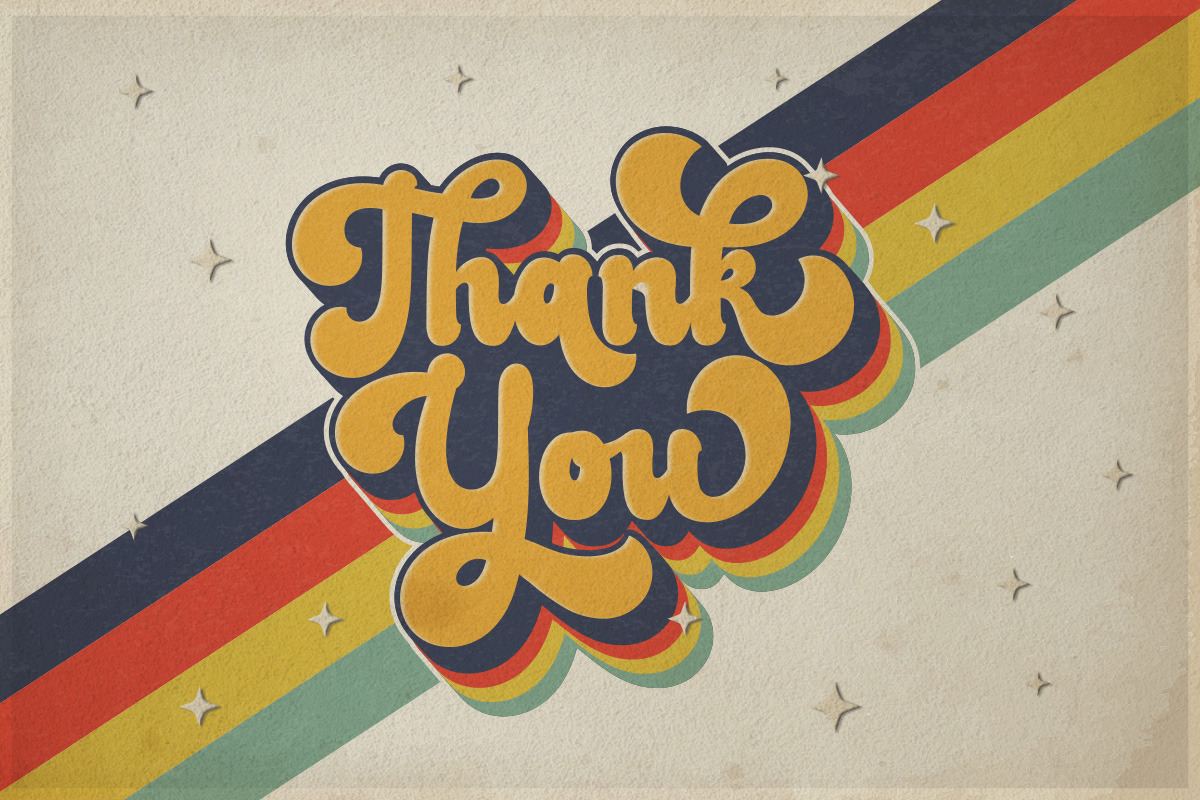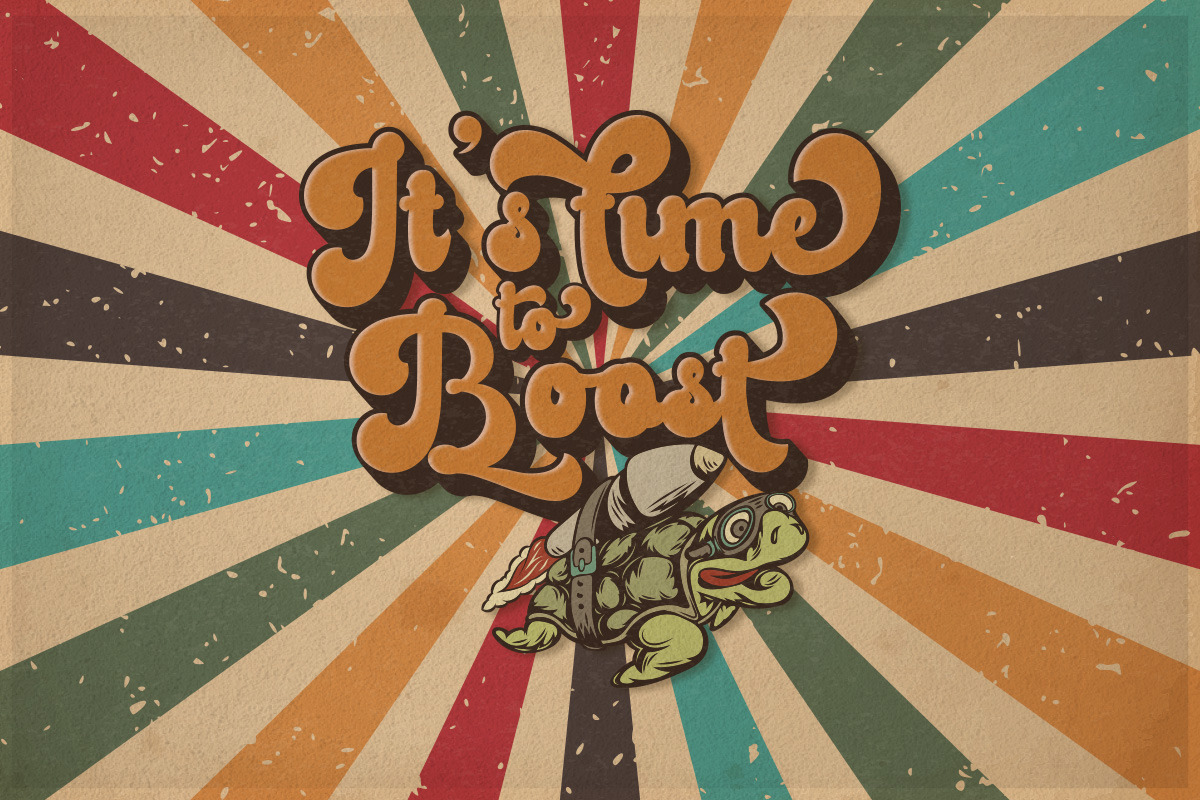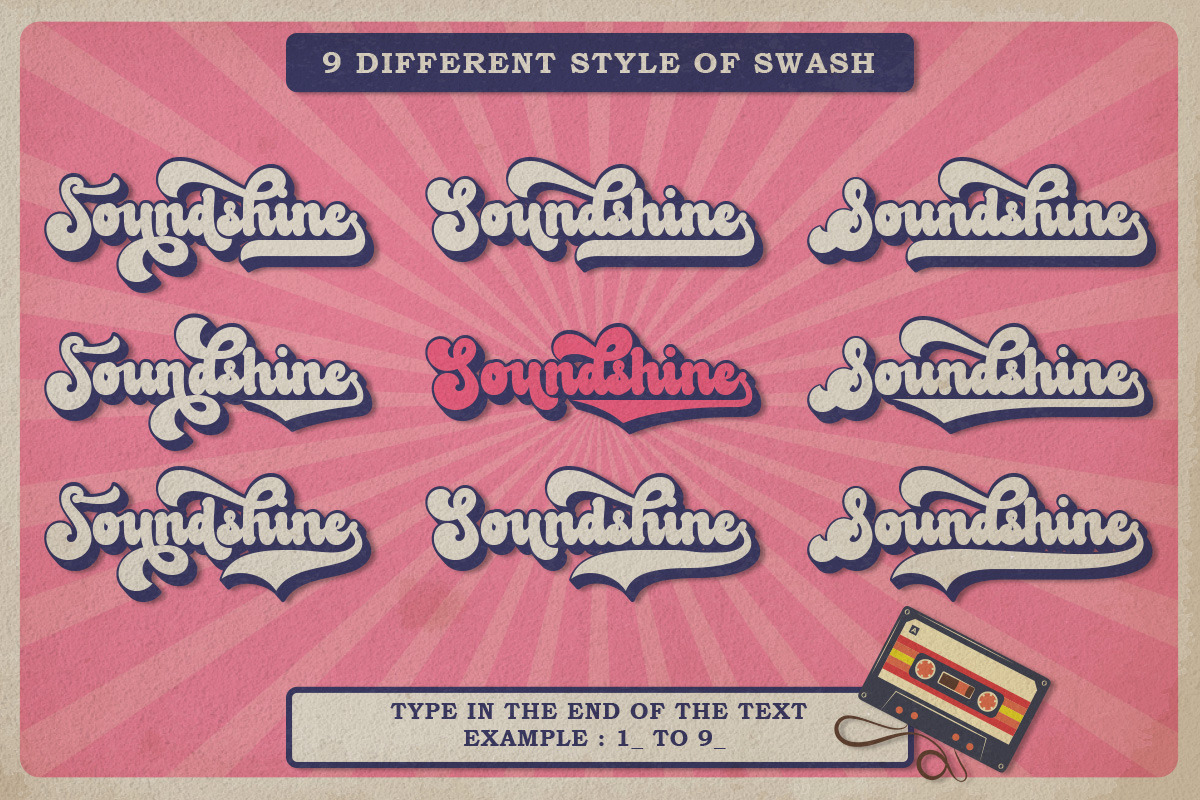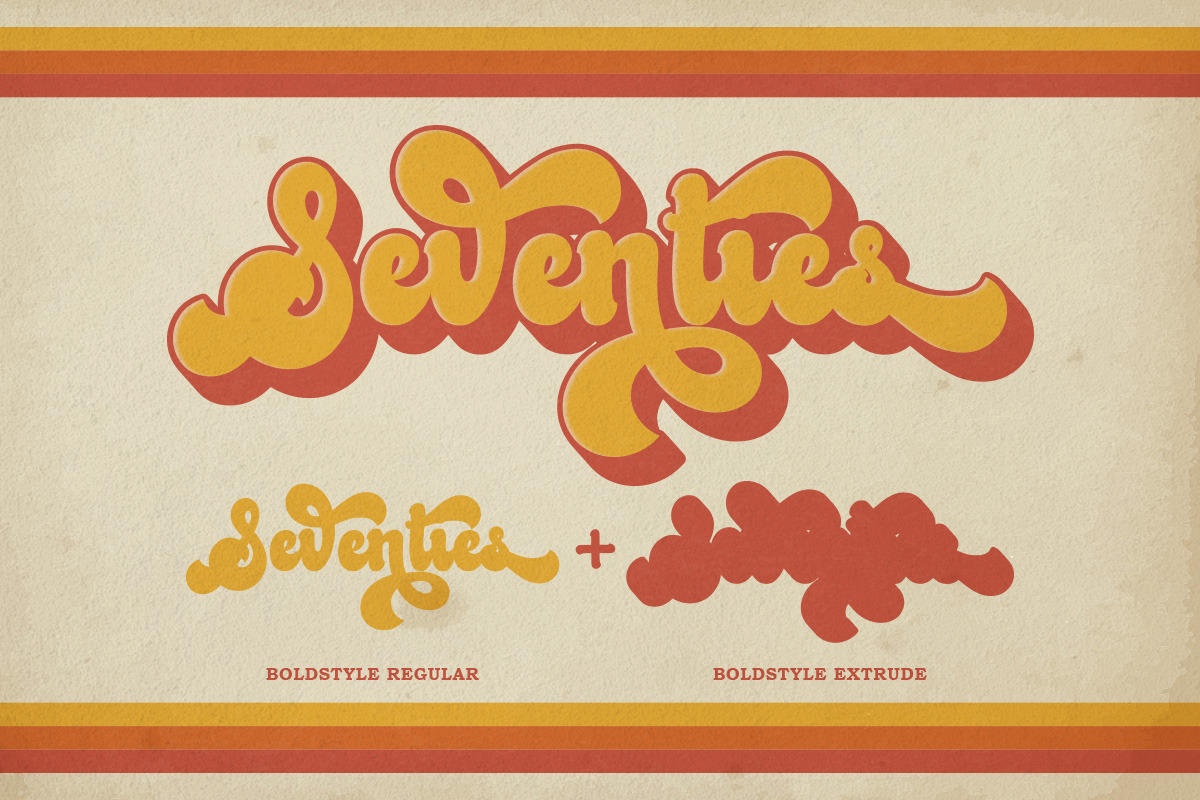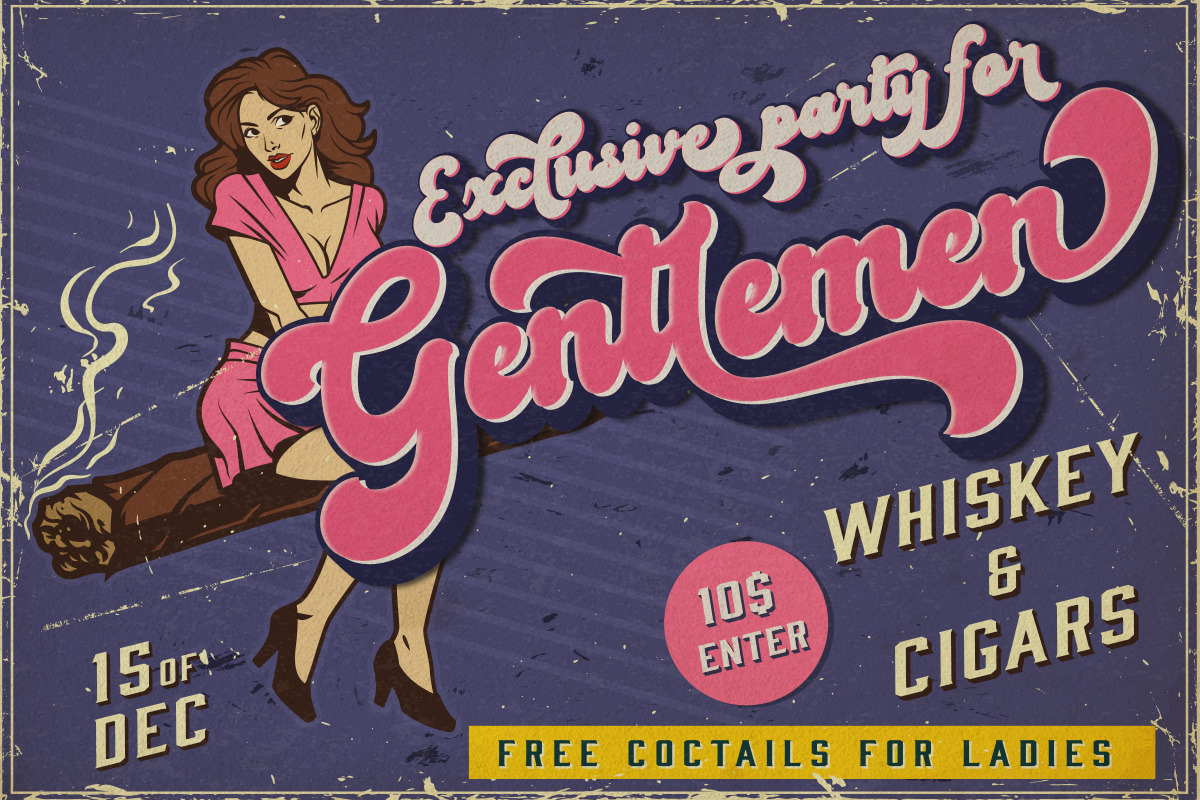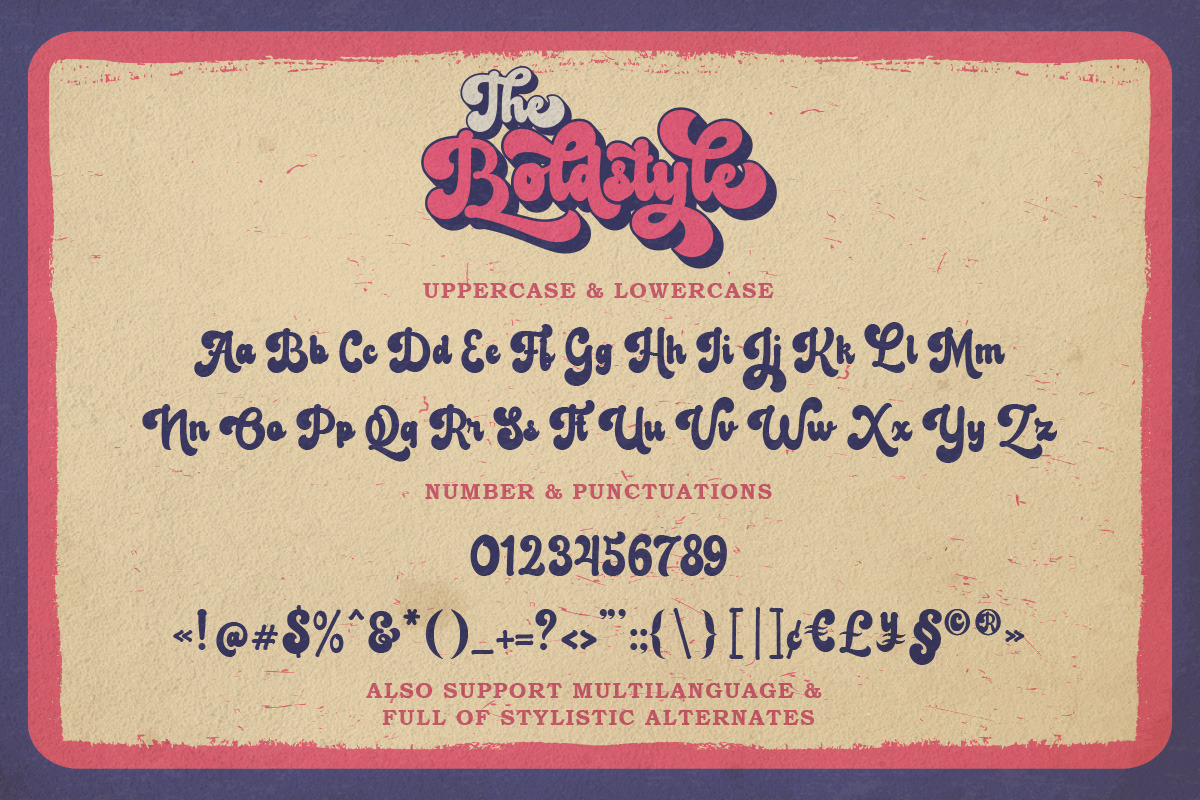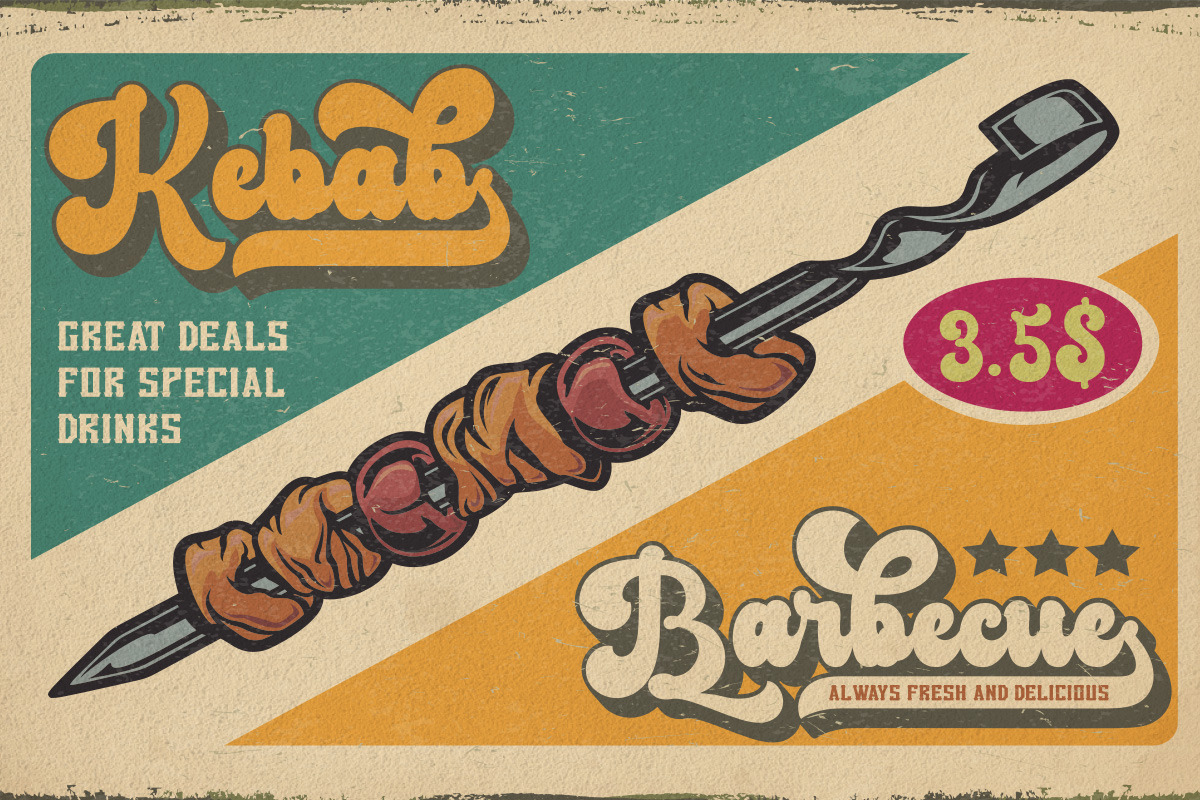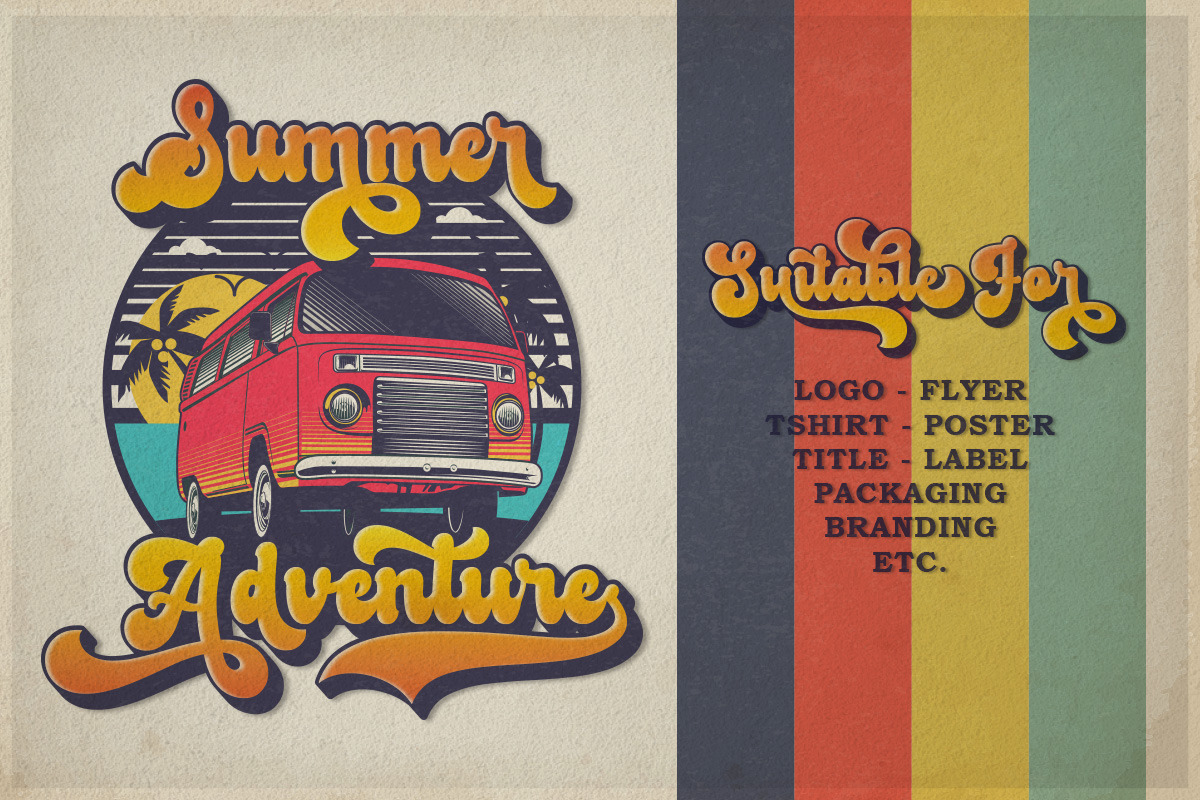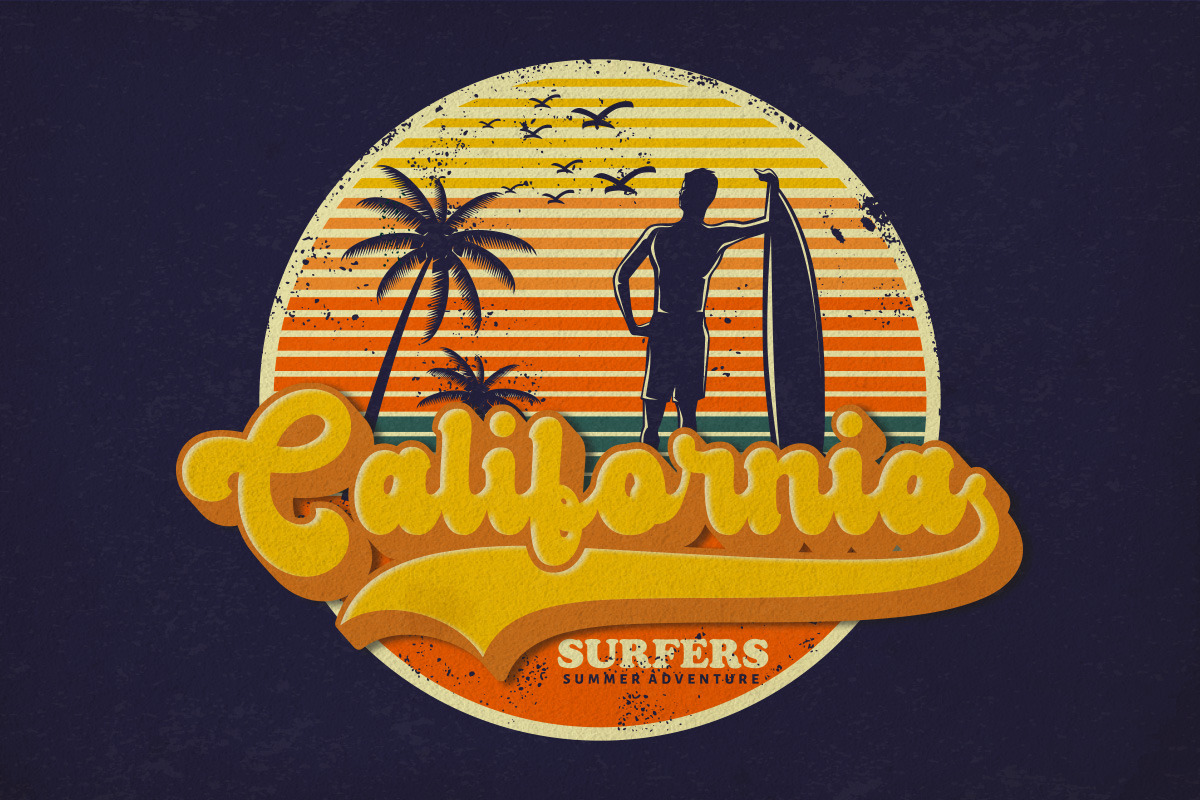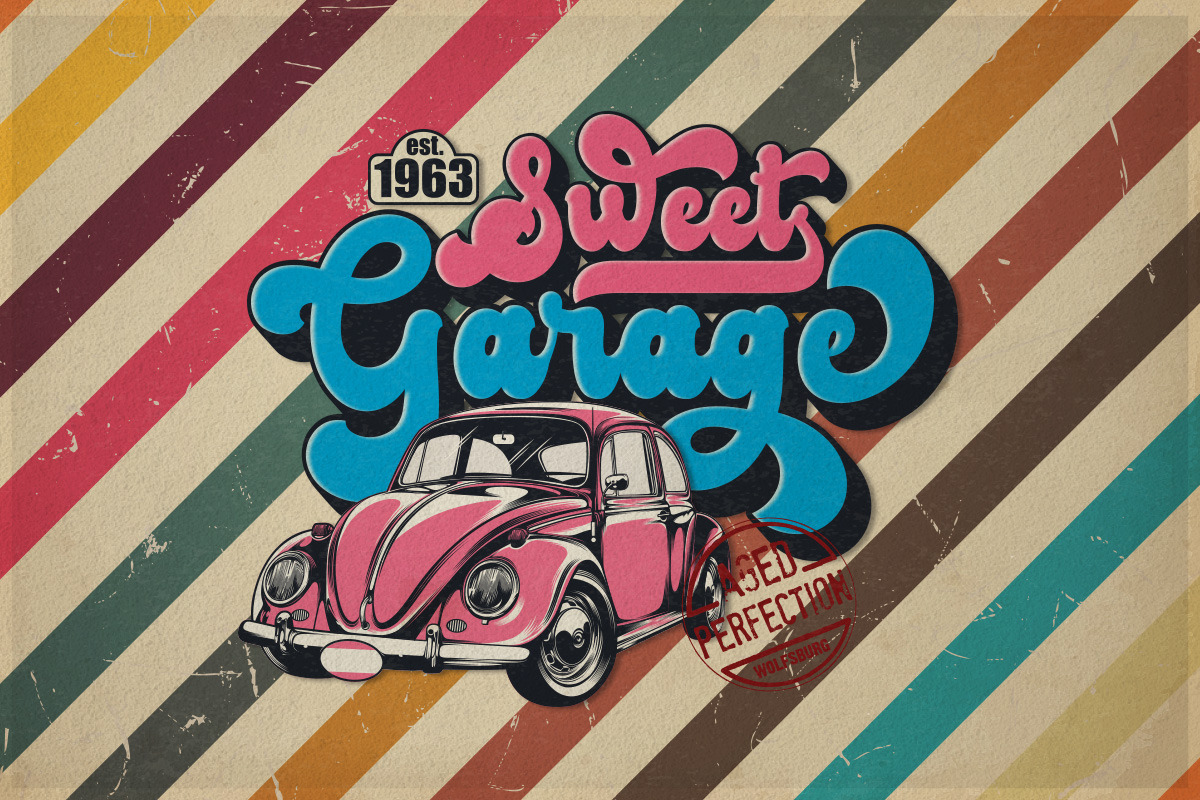
The Boldstyle | Retro Script
Introducing The Boldstyle a retro bold script which will bring yo back to 70s feel.comes with Extrude versions. So you don't need extra effort to create extrude effects. Its features include: Stylistic Alternate, Swash, Ligatures, Stylistic set and multilingual support. You can choose alternatives for substitution with various variants Glyphs. Very suitable for logos, tshirts, posters, branding, etc.